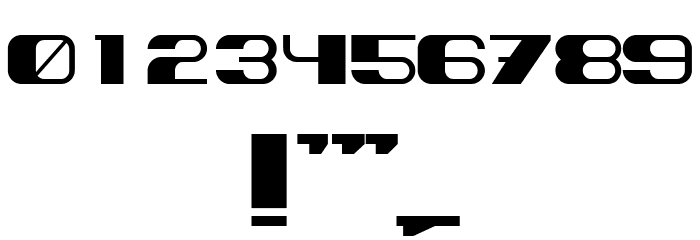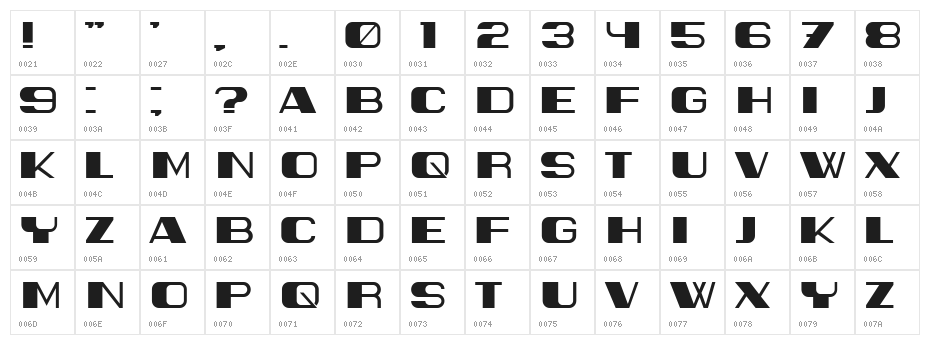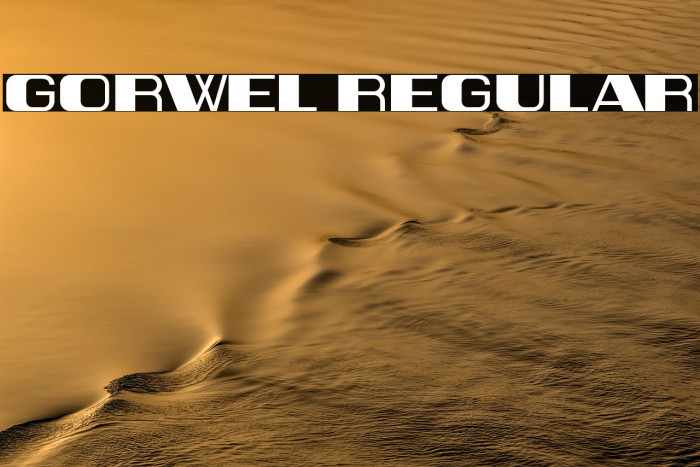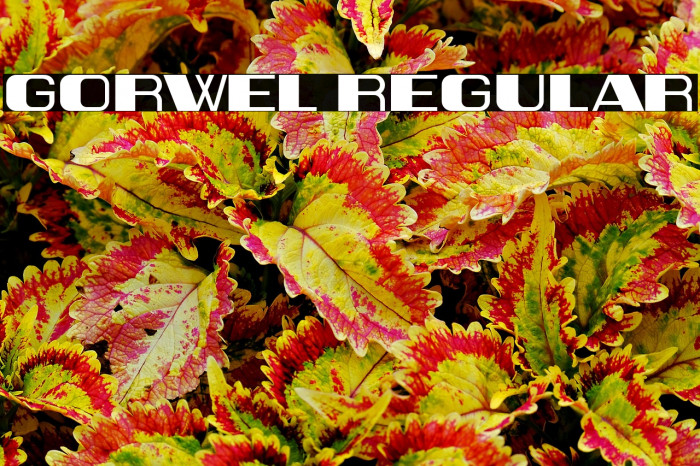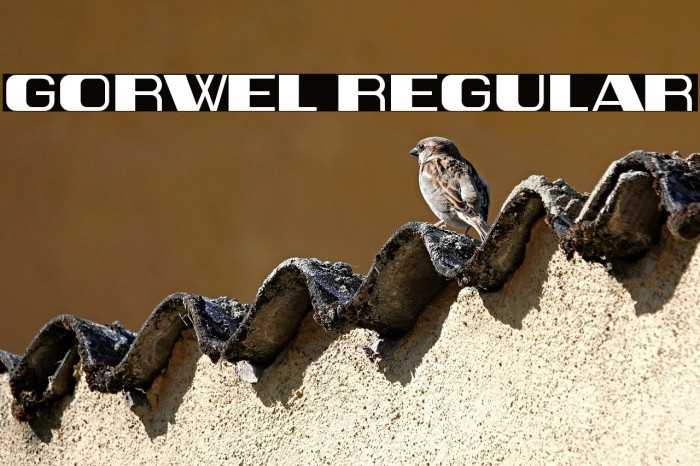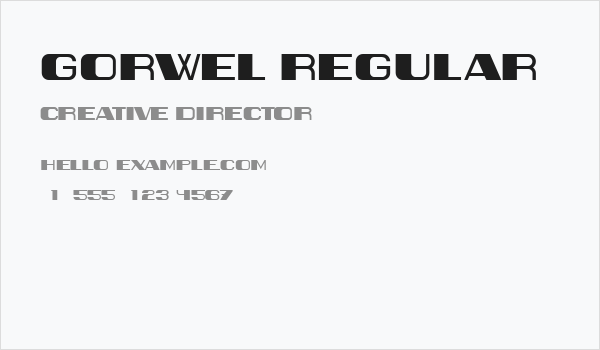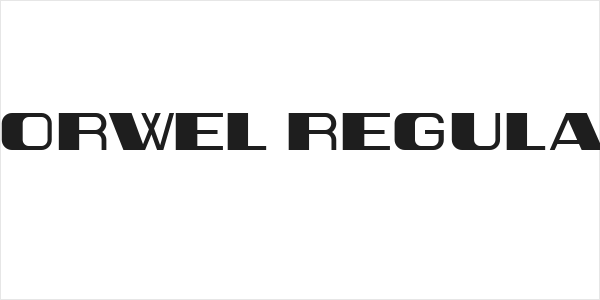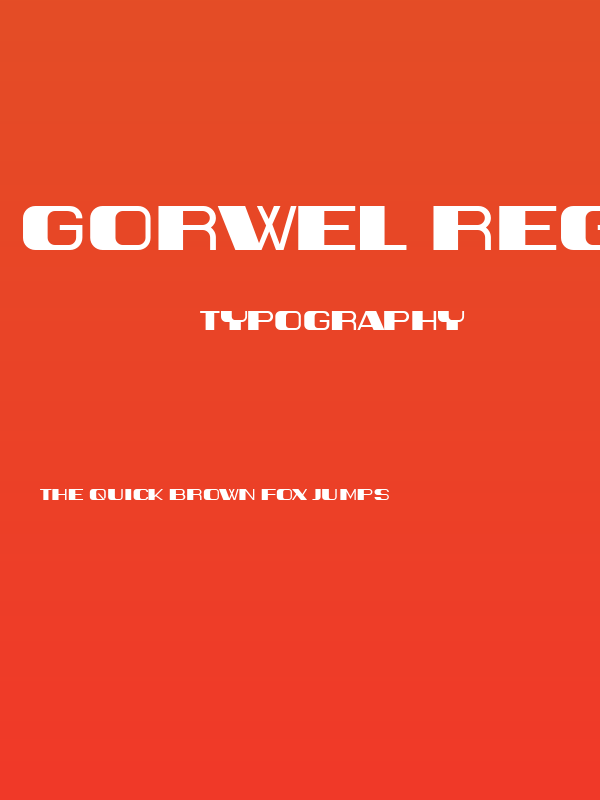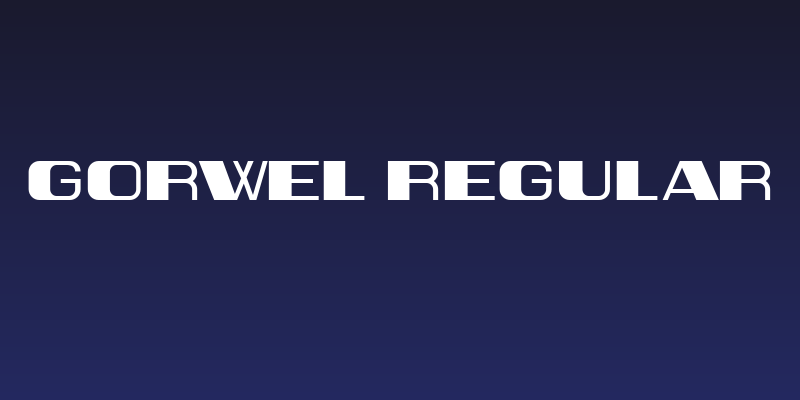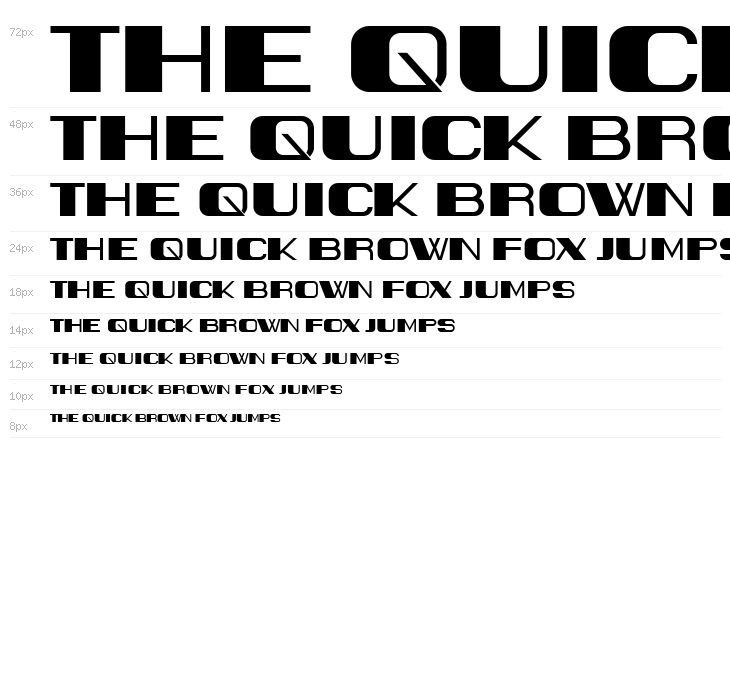
Gorwel Regular Font
Gorwel Regular Description
This font exhibits a bold, modern style with a distinct geometric influence. The characters are constructed with strong, angular lines and a unique cut-out design that adds a futuristic touch. The uppercase letters are particularly striking, with a consistent height and width that create a uniform appearance. The numbers and special characters maintain this bold aesthetic, ensuring cohesion across all elements. The font's design is both eye-catching and versatile, suitable for a variety of creative applications.
| Proposed Projects | Ideal for branding, posters, headlines, and digital media projects that require a modern and bold statement. |